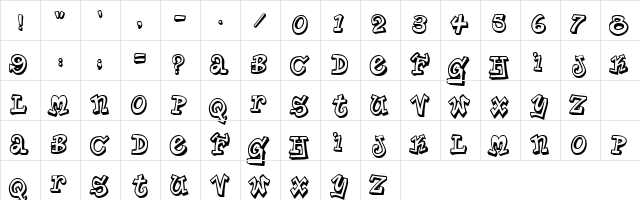
Planet Benson Regular
Design Context for Planet Benson Typeface
Planet Benson is a composed and adaptable typeface that performs quietly and consistently across a wide range of design contexts.